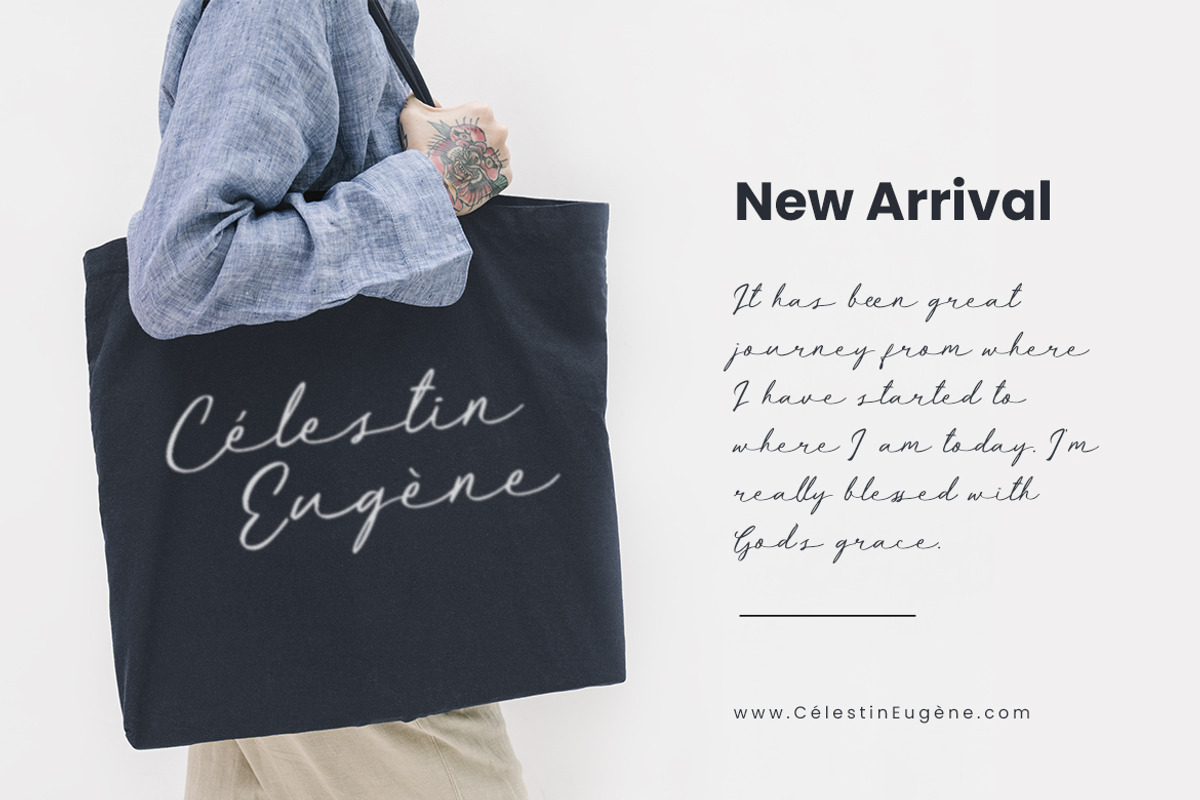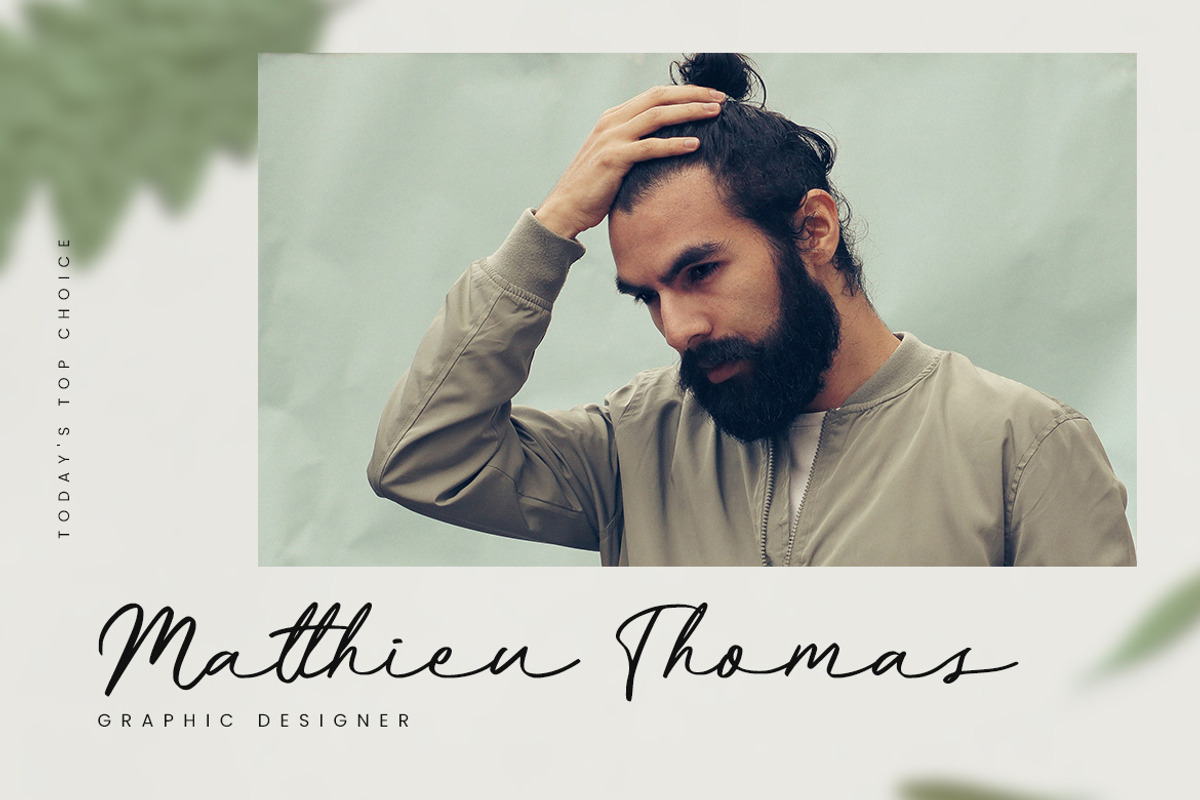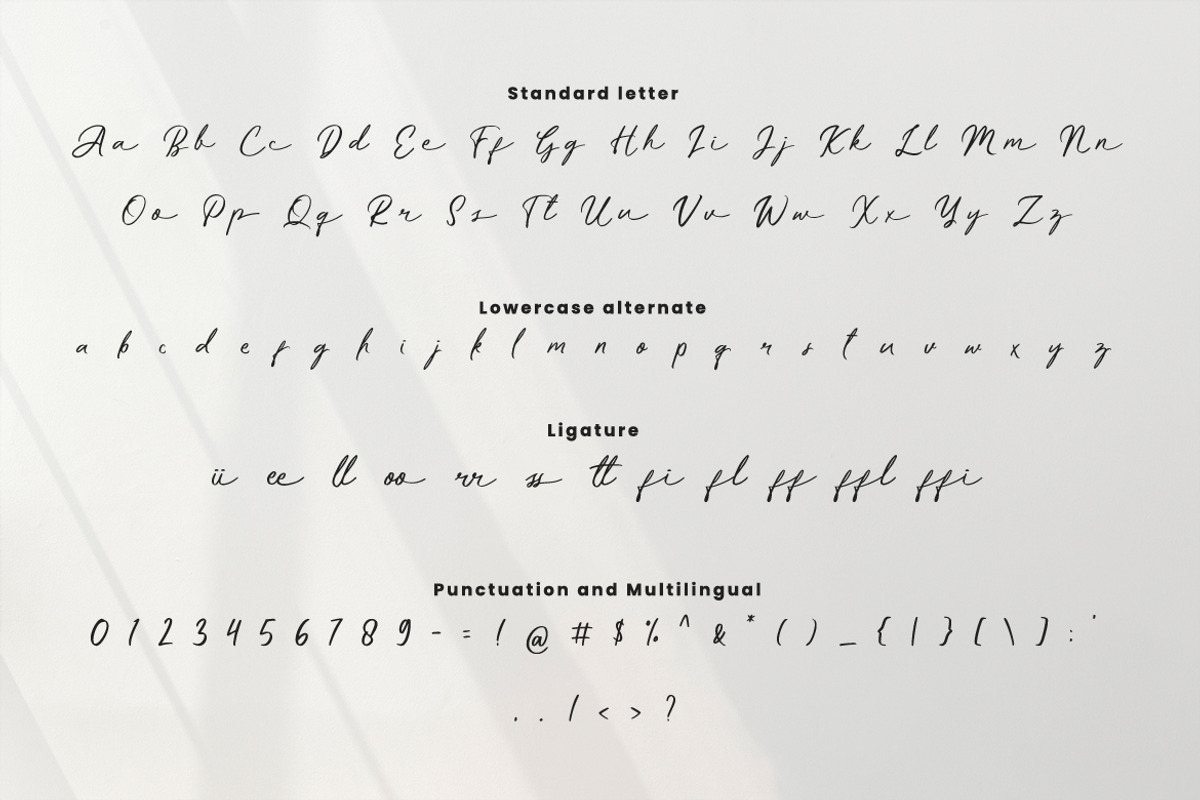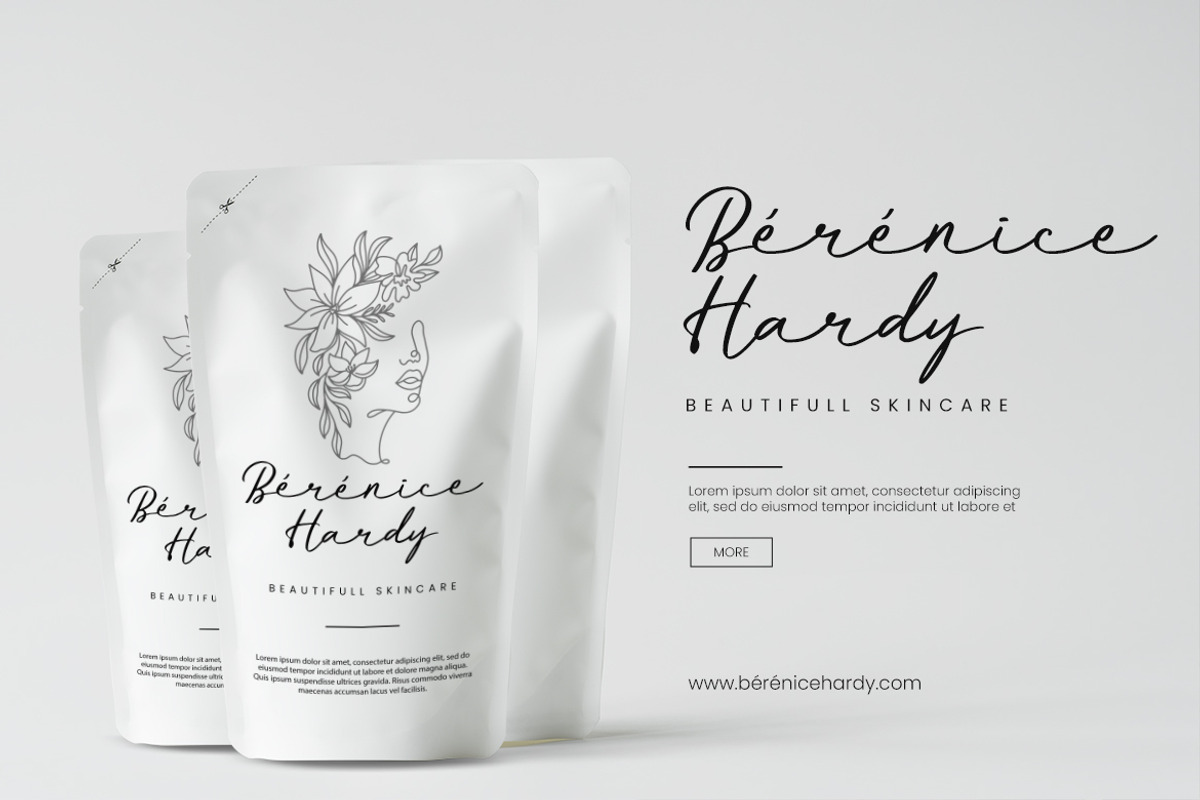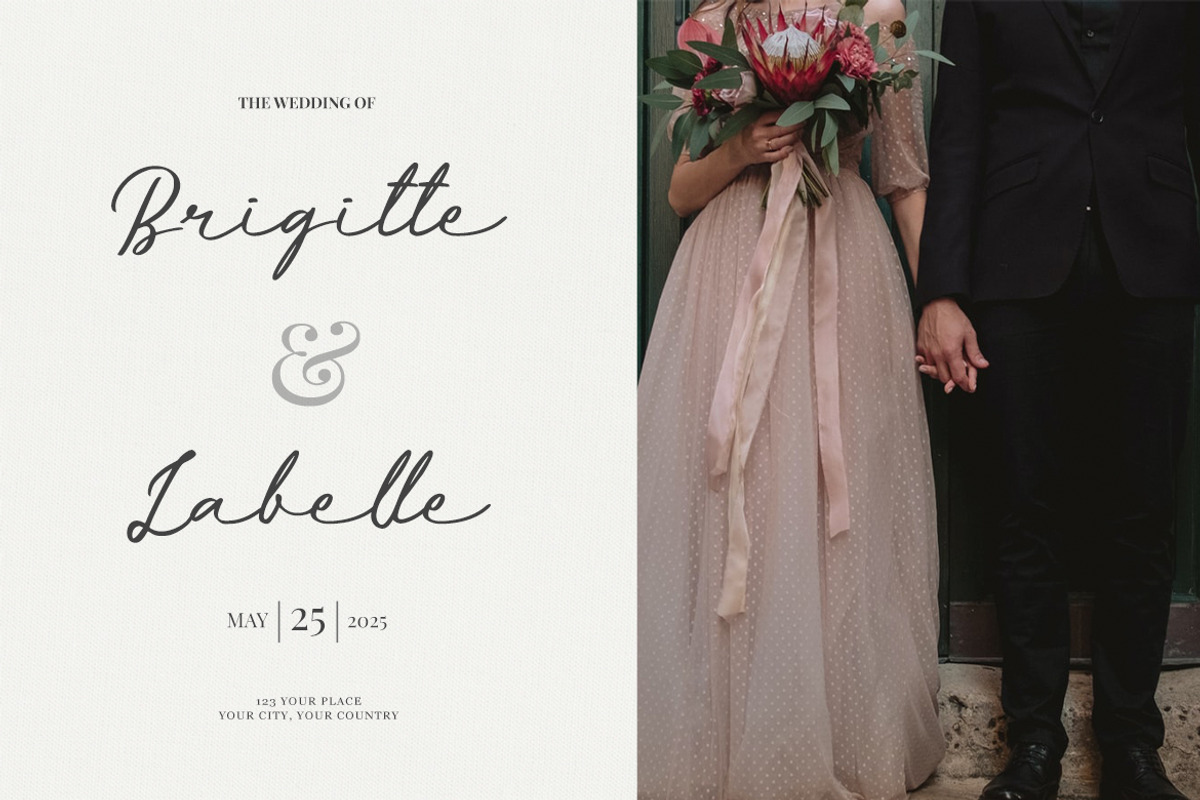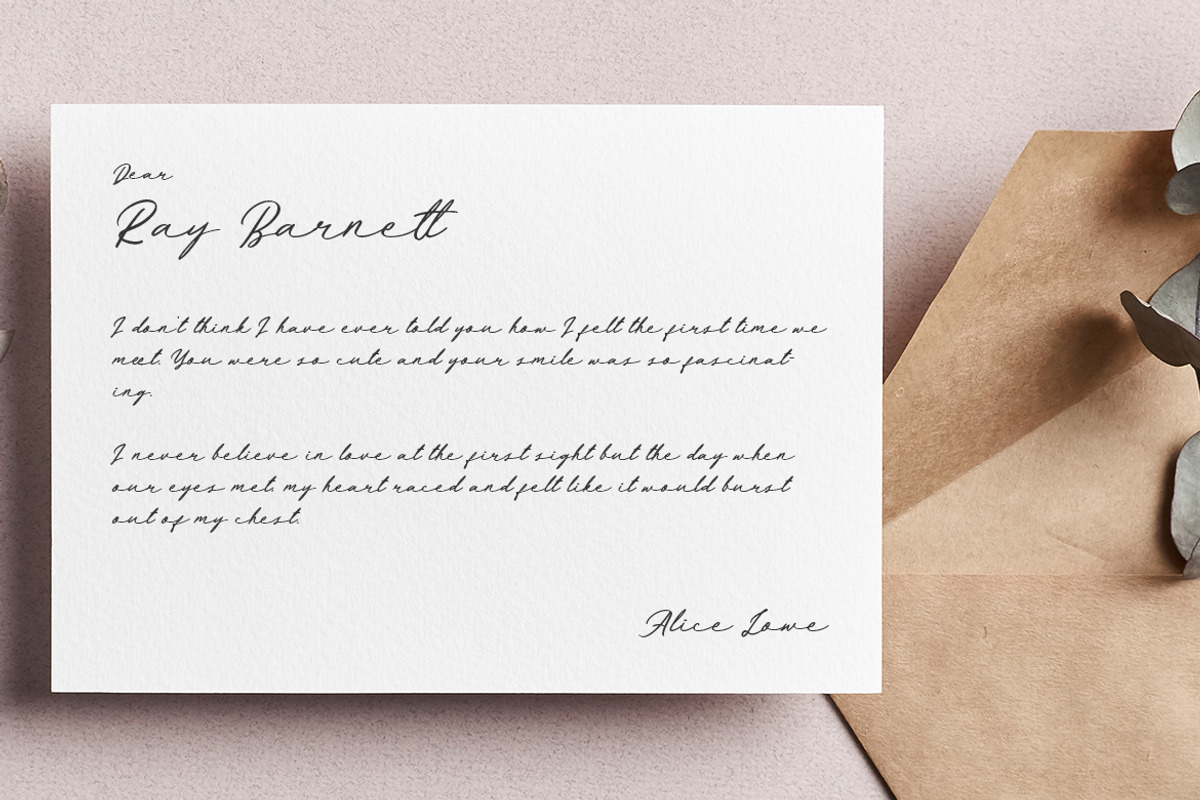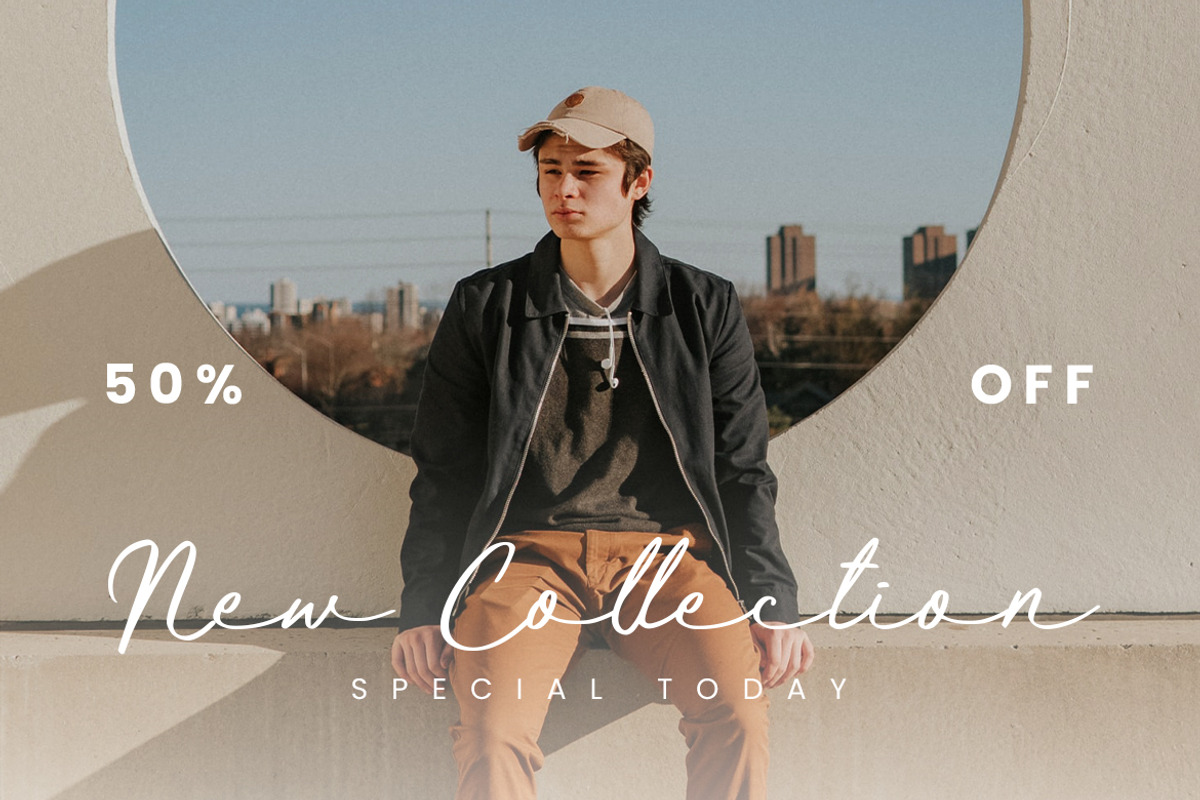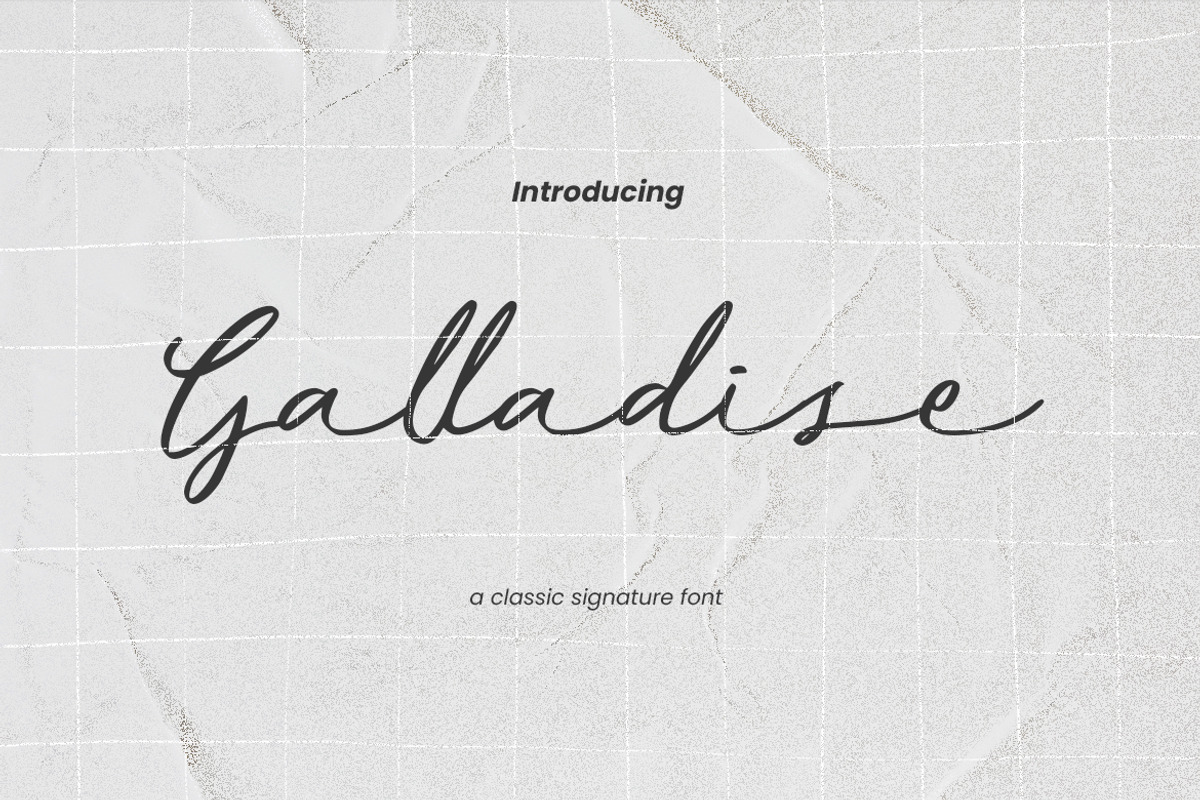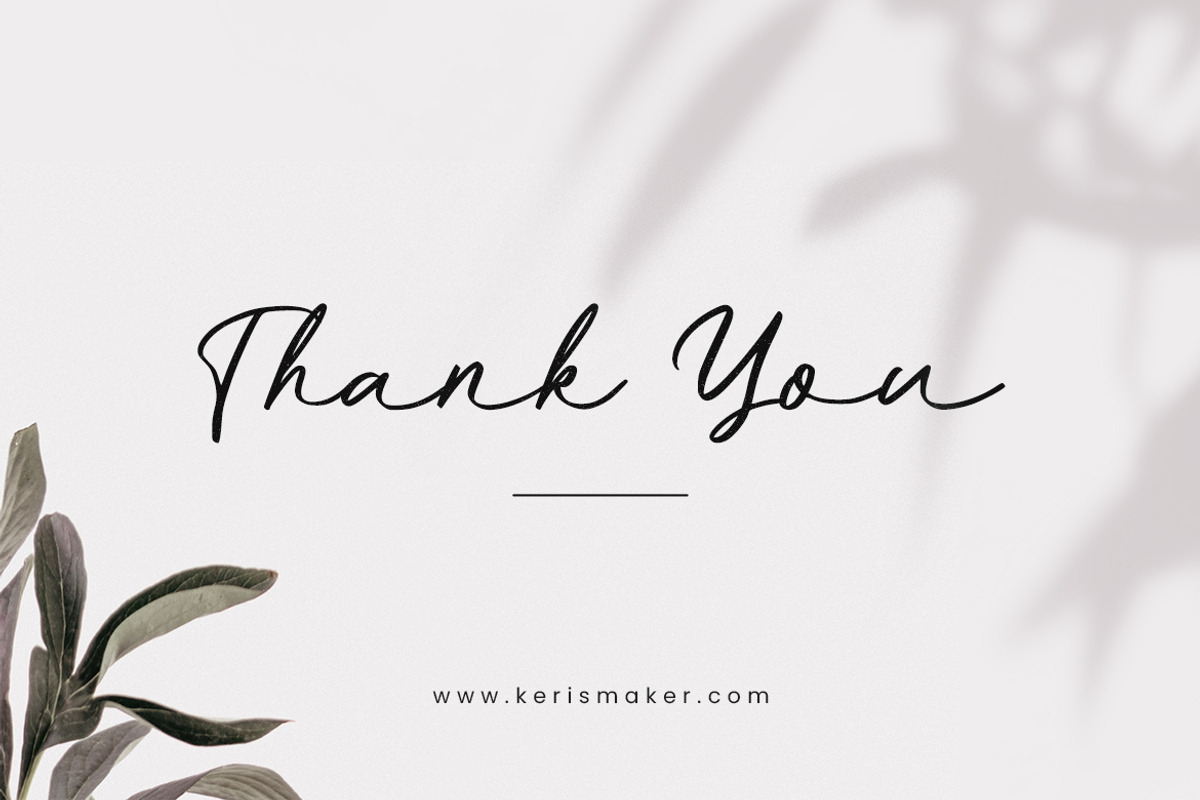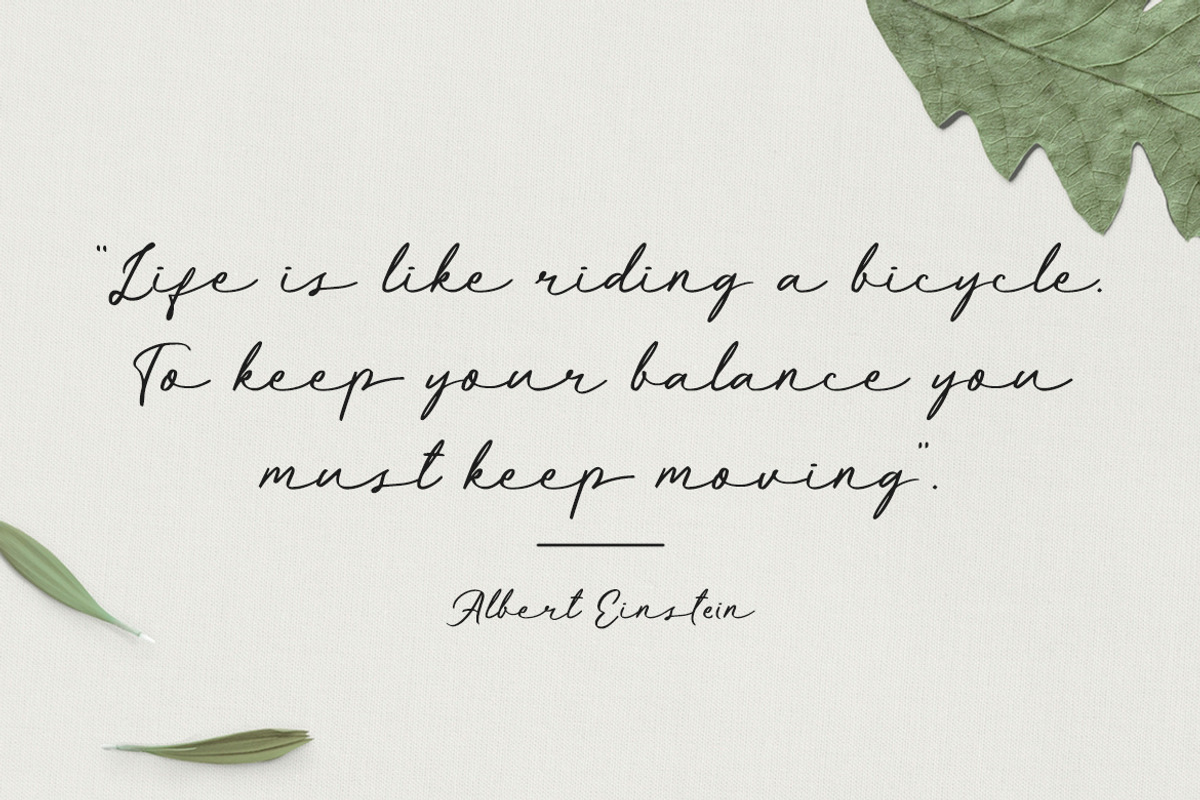
Galladise
Galladise is a classic signature font, with subtle texture imperfections left in, it to appear as authentic as possible while remaining clearly legible on your projects.
Galladise Font multilingual support: Afrikaans, Albanian, Catalan, Danish, Dutch, English, Estonian, French, Finnish, German, Icelandic, Indonesian, Italian, Malay, Norwegian, Portuguese, Spanish, Swedish, Zulu, and many more.